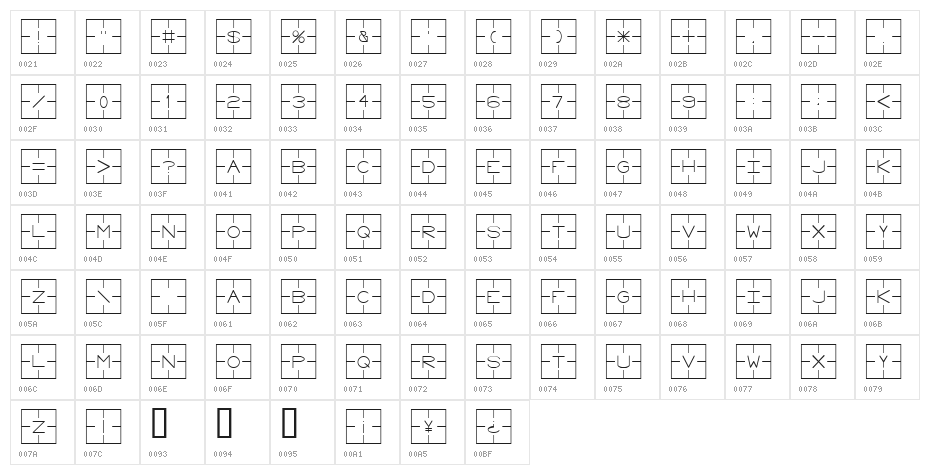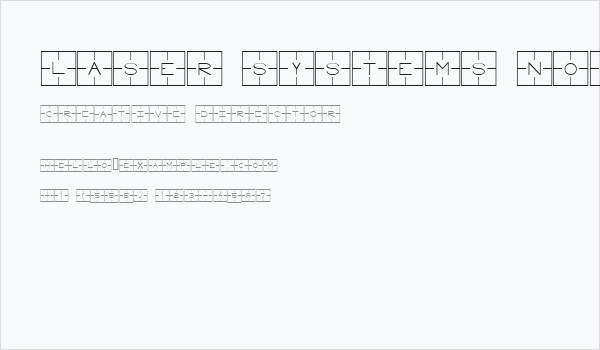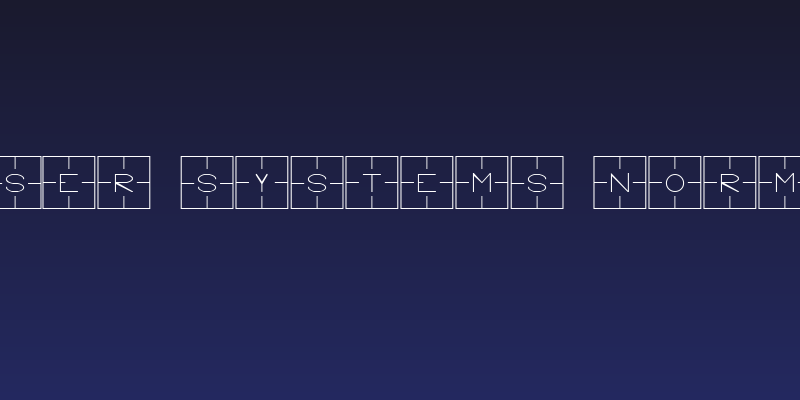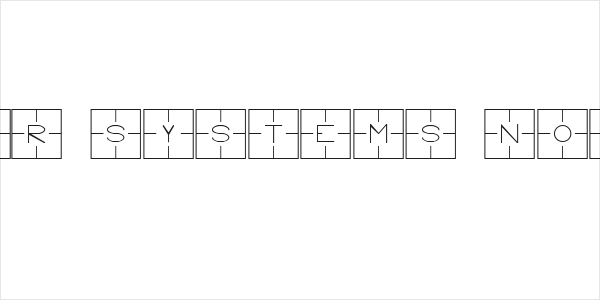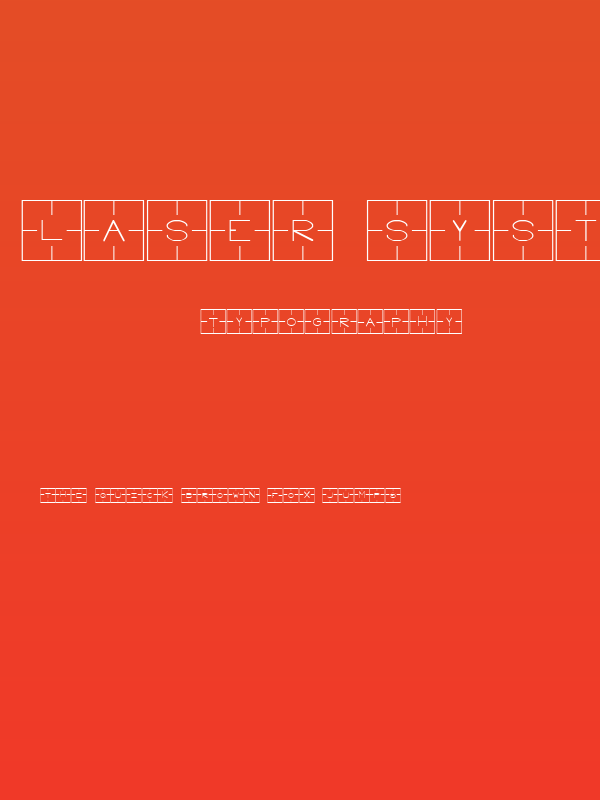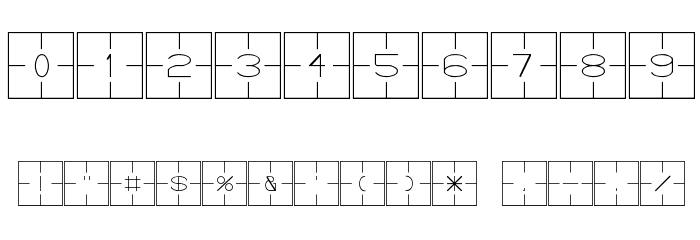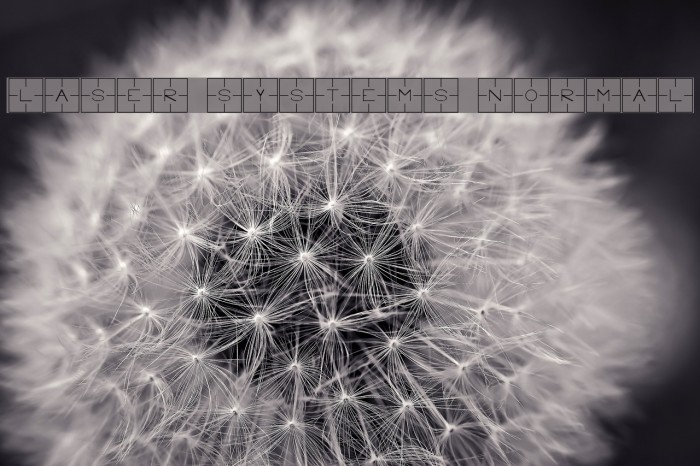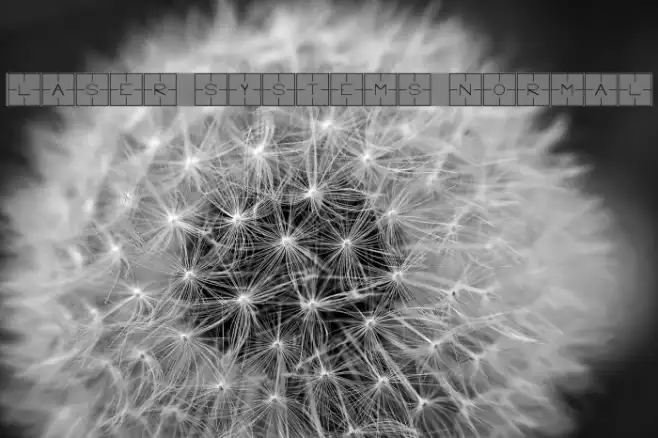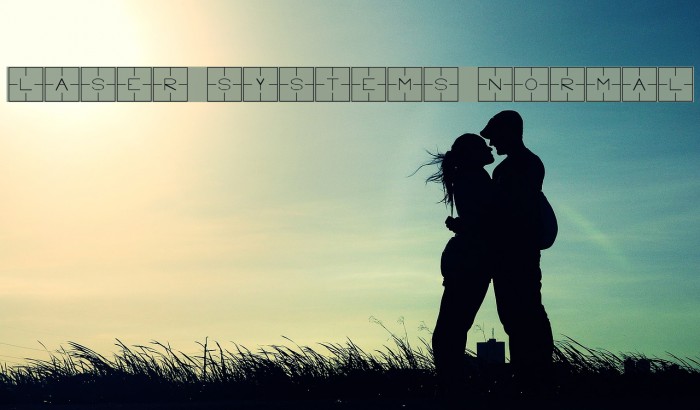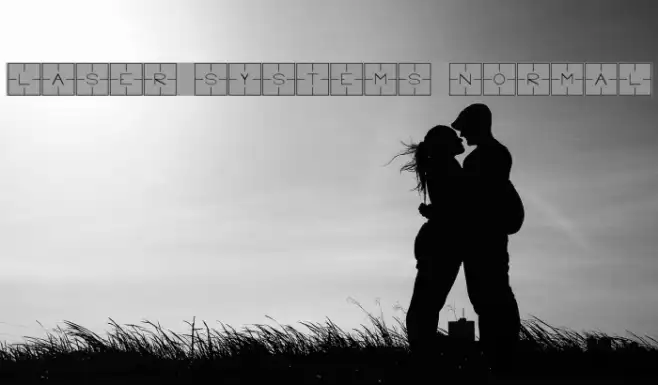
Laser Systems Normal Font
Laser Systems Normal Description
This font features a unique, futuristic design with a geometric and modular appearance. Each character is enclosed within a rectangular grid, giving it a structured and mechanical look. The lines are clean and precise, with consistent stroke widths that contribute to a uniform and balanced aesthetic. The characters are evenly spaced, enhancing readability while maintaining a distinct, technical style. This font is ideal for projects that require a modern, industrial feel, such as technology branding, digital interfaces, or sci-fi themed designs.
| Proposed Projects | Ideal for technology branding, digital interfaces, sci-fi themes, and industrial design projects. |